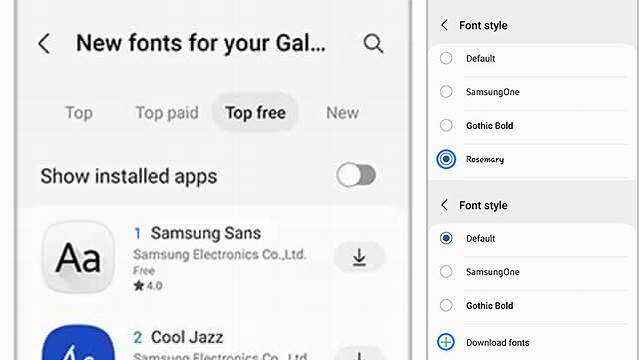
Free Fonts: How To Download On Samsung Phones
Hey guys! Ever feel like your phone's font is just...blah? You stare at your screen all day, so why not make it a little more you? Customizing your Samsung phone with cool, free fonts is super easy and can totally refresh your mobile experience. This article will walk you through how to download free fonts on your Samsung device, step by step, so you can ditch those default letters and hello to personalized typography!
Why Change Your Font?
Before we dive into the "how," let's talk about the "why." Changing your font is more than just a cosmetic tweak. It's a way to express your personality, improve readability, and even reduce eye strain. Let's explore the awesome benefits of switching things up:
- Personalization: Your phone is an extension of you, right? The font you choose can reflect your style, mood, and overall vibe. A playful, quirky font can add a touch of fun, while a sleek, modern font can give your phone a sophisticated edge. Think of it as accessorizing your digital self!
- Readability: Let's be real, some default fonts aren't the easiest on the eyes. Switching to a font with clearer letterforms and better spacing can make reading articles, emails, and messages way more comfortable. If you're someone who spends a lot of time on your phone, this is a huge win.
- Accessibility: For users with visual impairments, font customization is a game-changer. Many custom fonts offer improved legibility and contrast, making it easier to read text on the screen. Samsung's accessibility settings also allow you to adjust font size and boldness for optimal viewing.
- Reduced Eye Strain: Staring at a screen all day can lead to eye fatigue. Choosing a font that's easy on the eyes can help reduce strain and make your screen time more enjoyable. Look for fonts with good kerning (the spacing between letters) and a comfortable weight.
- Fresh Look: Let's face it, we all get tired of the same old thing. Changing your font is a quick and easy way to give your phone a fresh, new look without buying a new device or even a new theme. It's like a mini makeover for your phone!
Finding the perfect font can transform your daily interactions with your device. So, are you ready to explore the world of fonts and find the one that speaks to you? Let's get started!
Where to Find Free Fonts for Samsung
Okay, so you're convinced that changing your font is a good idea. Awesome! Now, where do you actually find these free fonts? Don't worry, there are several great places to score some amazing typography for your Samsung device. Let's explore your options:
2. Google Play Store
The Google Play Store is another fantastic resource for free fonts. You'll find a plethora of font apps that offer a wide variety of styles, from elegant serifs to playful scripts. Keep in mind that these apps might require a bit more setup than downloading directly from the Galaxy Store, but the extra effort can be worth it for the sheer volume of options.
When browsing the Play Store, be sure to read reviews and check the app's permissions before installing anything. You want to make sure you're downloading a reputable app that won't compromise your phone's security. Look for apps with high ratings and positive feedback from other users. Once you've found a font app you like, download it and follow the instructions to install the fonts on your Samsung device.
The Google Play Store expands your font options significantly, providing access to a vast library of fonts from various developers. This platform is particularly useful if you have specific stylistic preferences or are looking for unique and niche fonts. However, it's crucial to exercise caution and due diligence when downloading apps from the Google Play Store, as not all apps are created equal. Before installing a font app, take the time to read user reviews and check the app's permissions. User reviews often provide valuable insights into the app's performance, stability, and overall user experience. Checking permissions ensures that the app is not requesting access to unnecessary parts of your phone, which can be a sign of a malicious app. Look for apps that have a large number of downloads and positive ratings, as these are generally more trustworthy. Many font apps in the Google Play Store offer a wide range of customization options, allowing you to adjust font size, weight, and other parameters to suit your preferences. This level of customization can be particularly beneficial for users who have specific readability needs or who want to fine-tune the appearance of their phone's text. The Google Play Store is a dynamic and ever-evolving marketplace, so you're likely to discover new and interesting fonts on a regular basis. However, staying vigilant about app security is essential to ensure a safe and enjoyable experience. By following best practices for app selection, you can tap into the vast resources of the Google Play Store to personalize your Samsung device with a unique and stylish font.